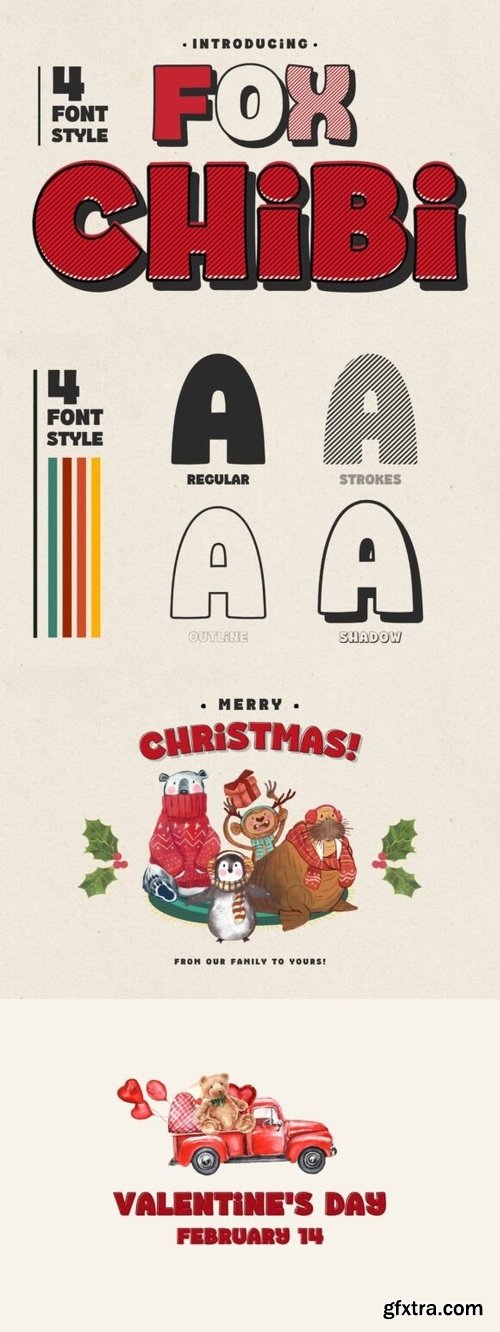
CreativeMarket - Fox Chibi: 4 Font Styles
- Fox Chibi is a fun, bold, and playful display font aesthetics. With its rounded edges and charmingly exaggerated proportions, this font is perfect for creating eye-catching designs with a retro, comic, or cartoon vibe.
This font comes in four unique styles: Regular – A solid and bold version, great for strong, impactful text. Strokes – A lined style that adds a dynamic, textured look. Outline – A hollow version, ideal for layering effects and creative typography. Shadow – A dimensional style that adds depth and a vintage feel. Fox Chibi is perfect for posters, comics, headlines, branding, kids' content, and anything that needs a lively and fun touch. Make your designs stand out with this quirky and energetic typeface!